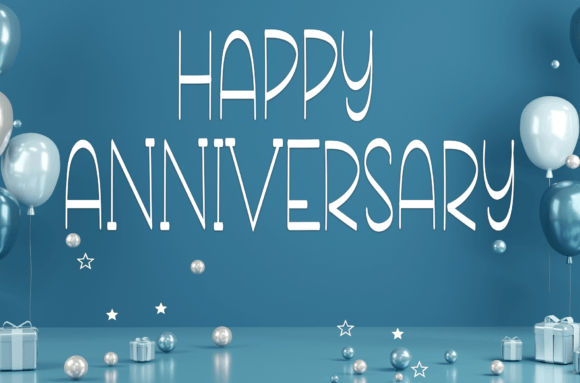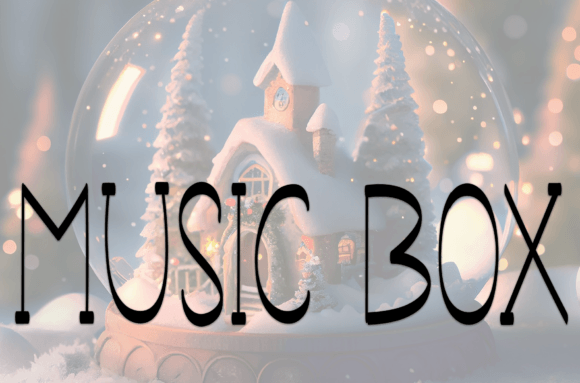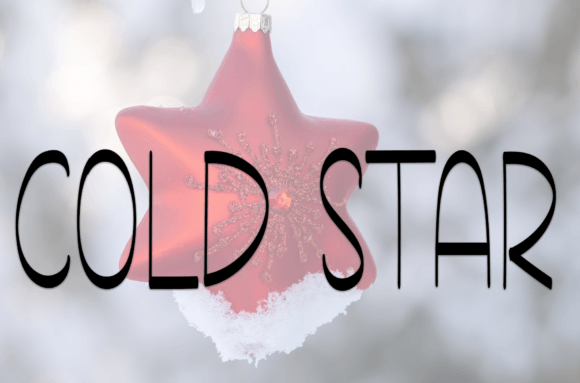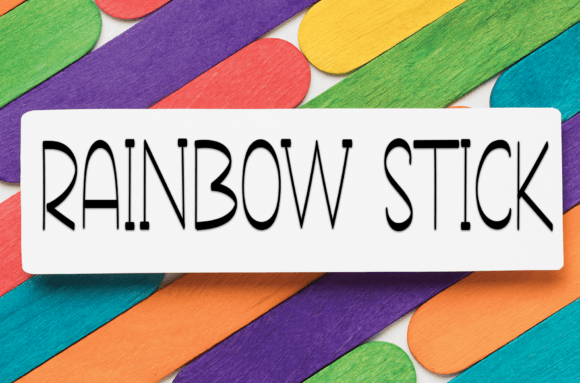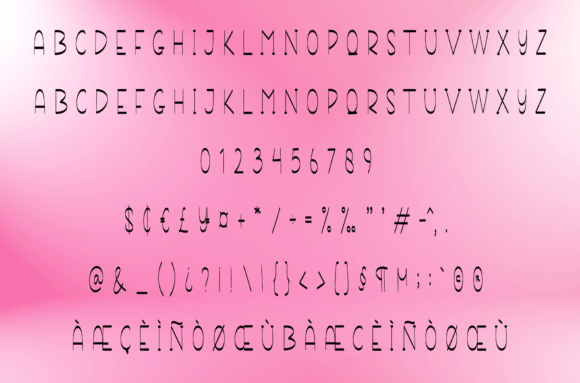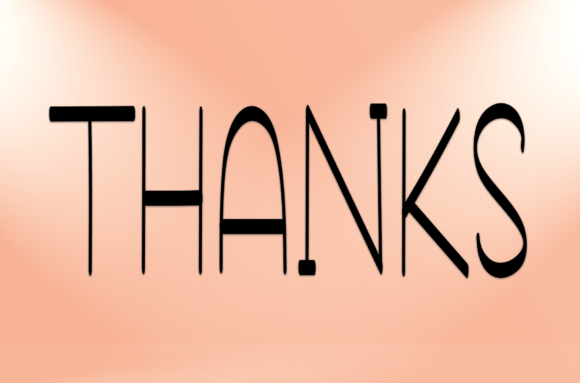
Who hasn’t experienced that moment of pure creative bliss when a new font sparks inspiration? It’s like stumbling upon a hidden treasure trove of ideas, waiting to be unleashed. For designers, it’s a thrill that never gets old. And today, we’re excited to introduce you to the Ballon Rainbow Font, a sweet and friendly handwritten font that’s sure to bring a smile to your face.
Perfect for writing wedding invitations, cards, or any other design that needs a lovely touch, the Ballon Rainbow Font is a valuable addition to any designer’s toolkit. Its fun and relaxed vibe makes it an ideal choice for projects that require a touch of whimsy and personality. Whether you’re a seasoned pro or a budding designer, this font is sure to bring a fresh perspective to your work.
Ballon Rainbow Font Key Features
- Unique Characteristics: The Ballon Rainbow Font features a playful, hand-drawn design with a mix of bold and cursive elements, creating a whimsical and eye-catching effect.
Ballon Rainbow Font Review
First off, I have to say that the Ballon Rainbow Font has some ✨ really unique features that make it stand out. The playful, handwritten style is perfect for creating a whimsical and eye-catching design. The font’s ability to convey a sense of fun and optimism is definitely a plus.
The font also comes with a wide range of characters, including Latin and Cyrillic scripts, which is a big ✨ plus for multilingual designers. Additionally, the font is highly customizable, with options for adjusting the size, color, and spacing.
Overall, I think the Ballon Rainbow Font is a solid choice for designers who want to add some personality to their work. While it may have some limitations, the font’s unique style and customization options make it a great option for those who want to create eye-catching designs.
Here are some tips to help you get the most out of the Balloon Rainbow Font:
- Use it to create visually appealing titles and headings.
- Experiment with different font sizes and colors to create a cohesive look.
- Combine with other fonts to create a unique and playful design.
Here are some common use cases for the Balloon Rainbow Font:
- Party invitations and decorations.
- Children’s books and educational materials.
- Marketing materials and social media graphics.